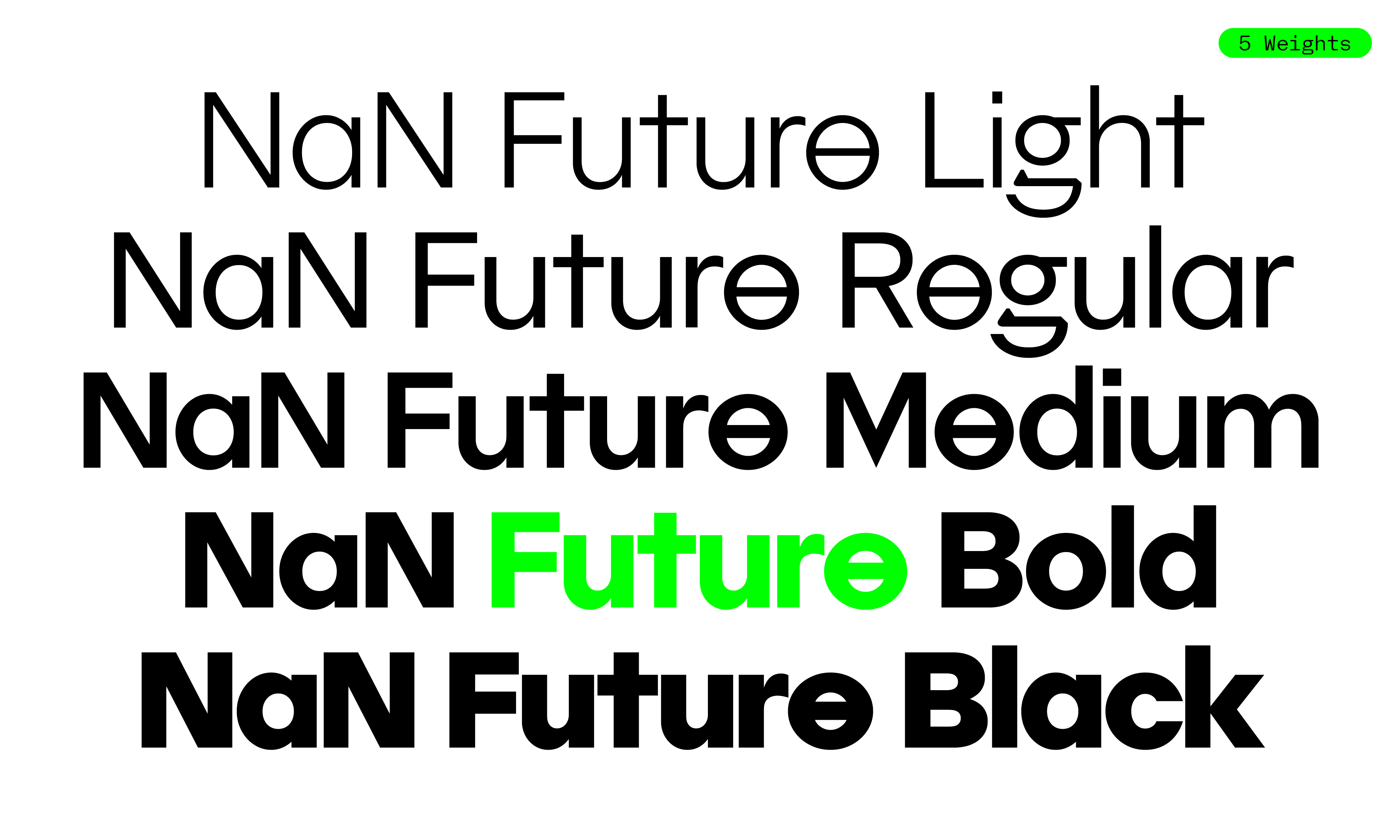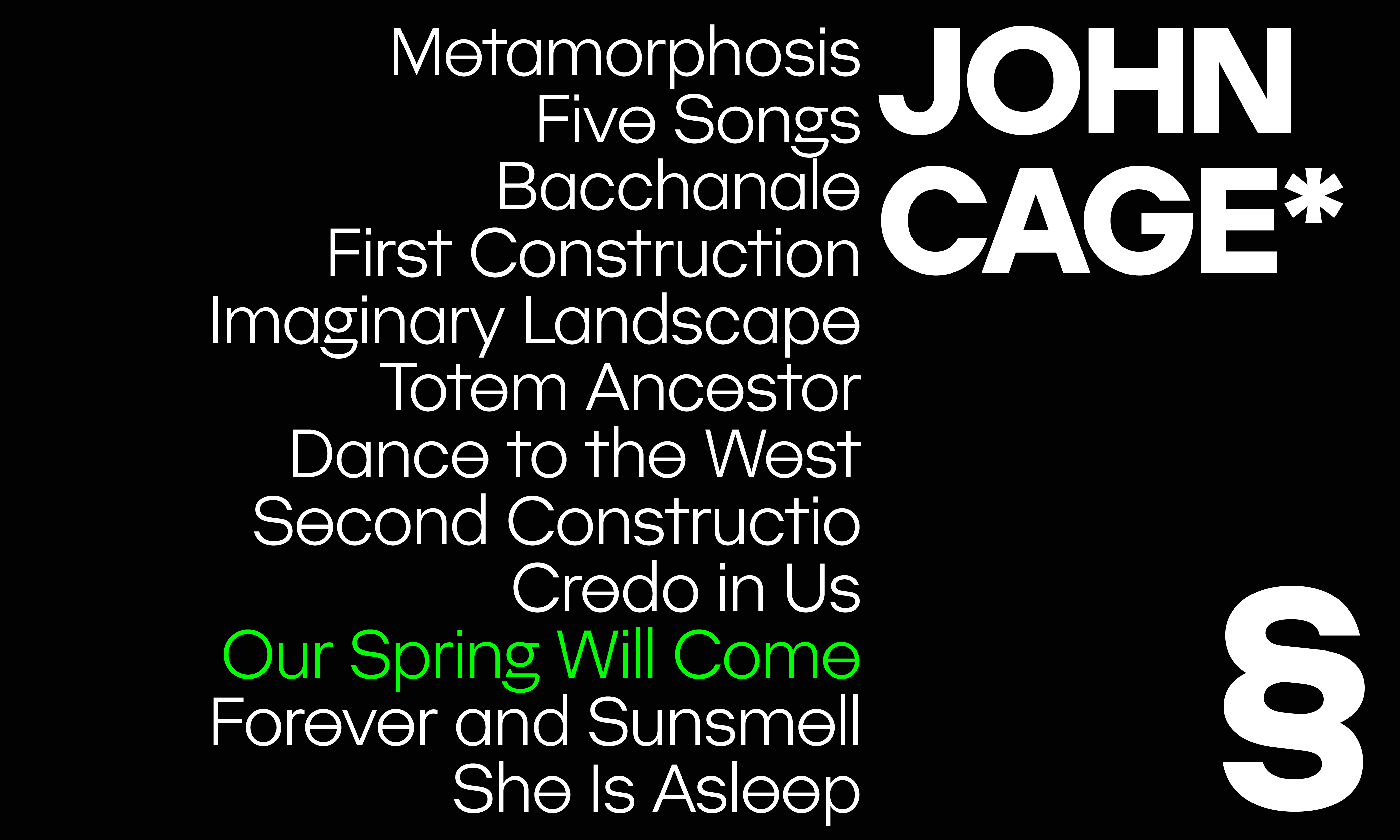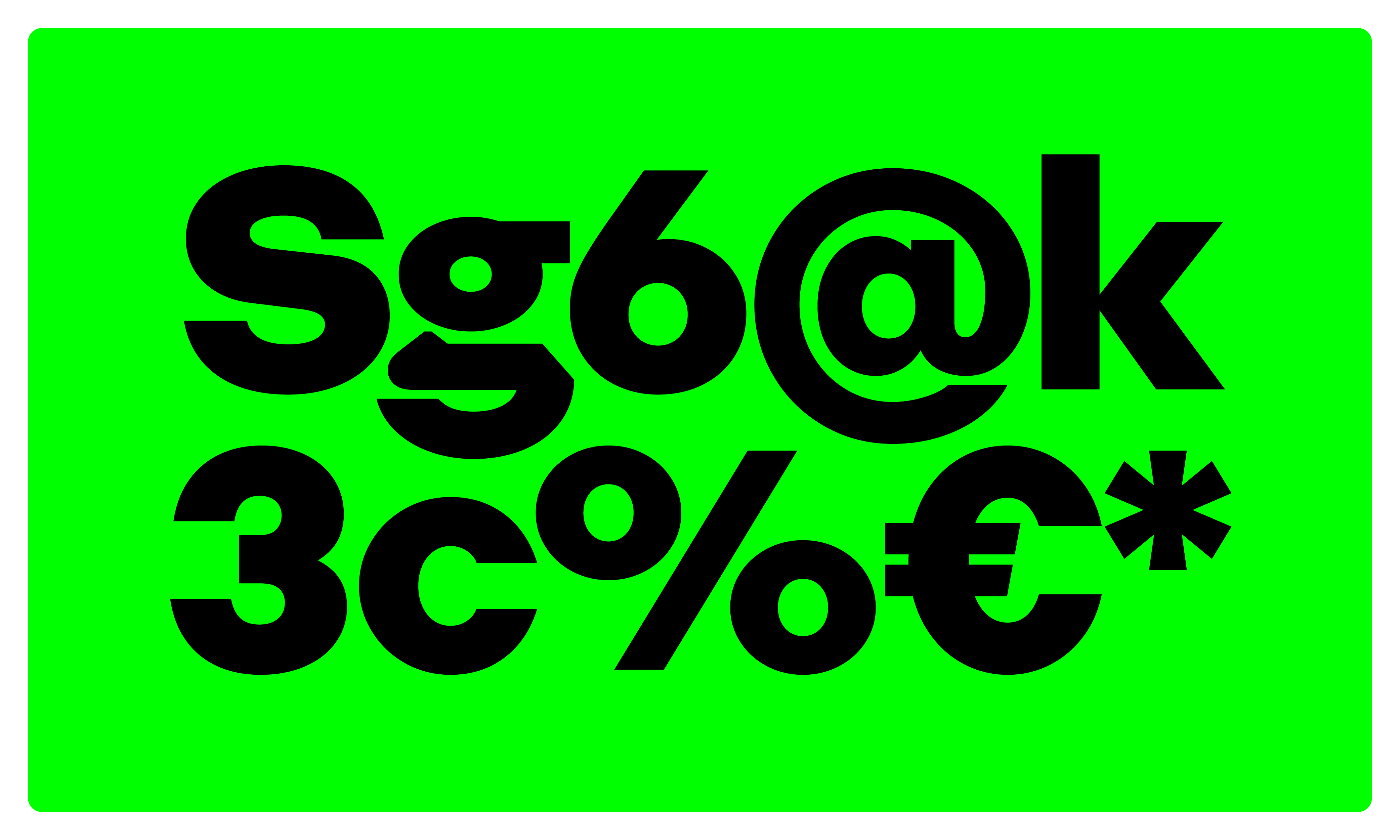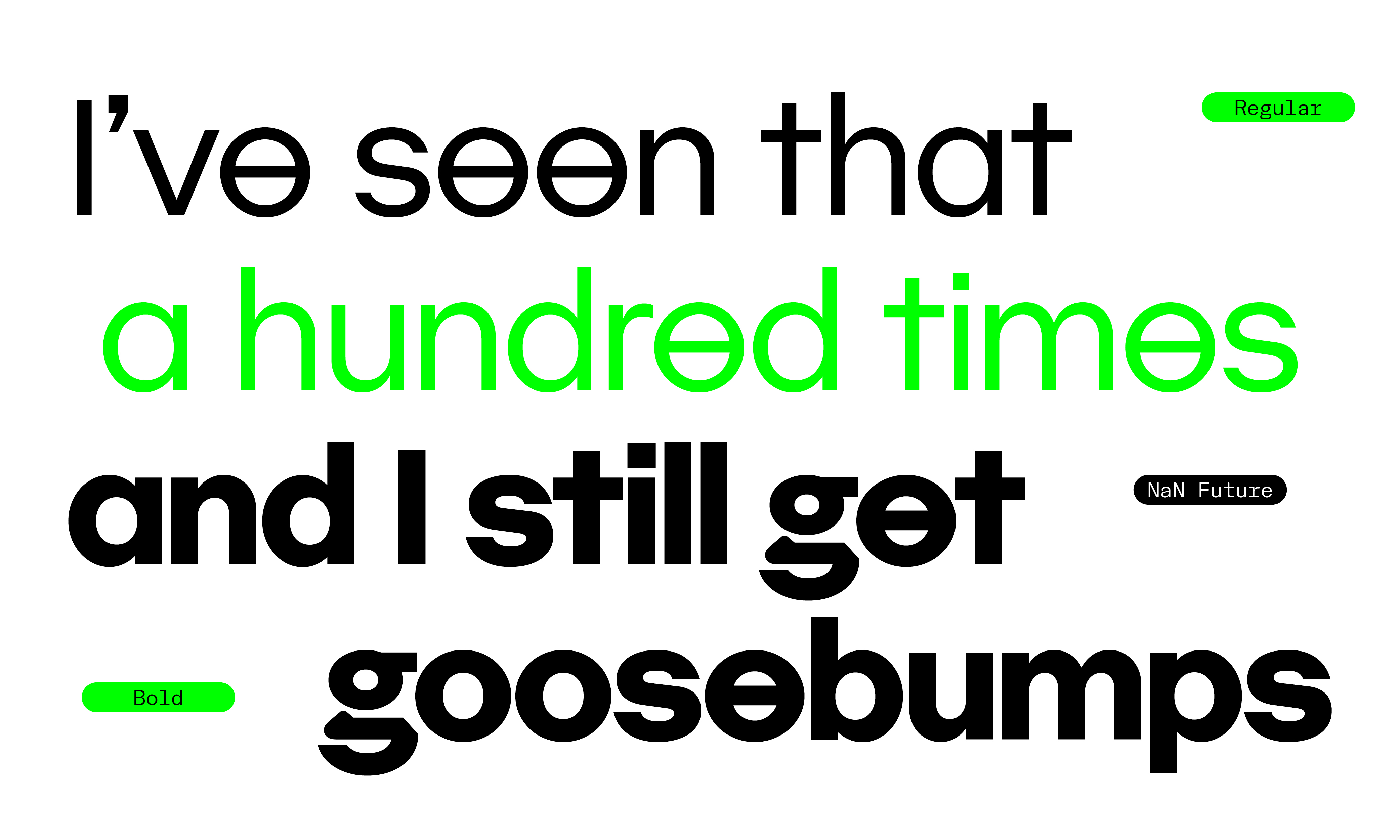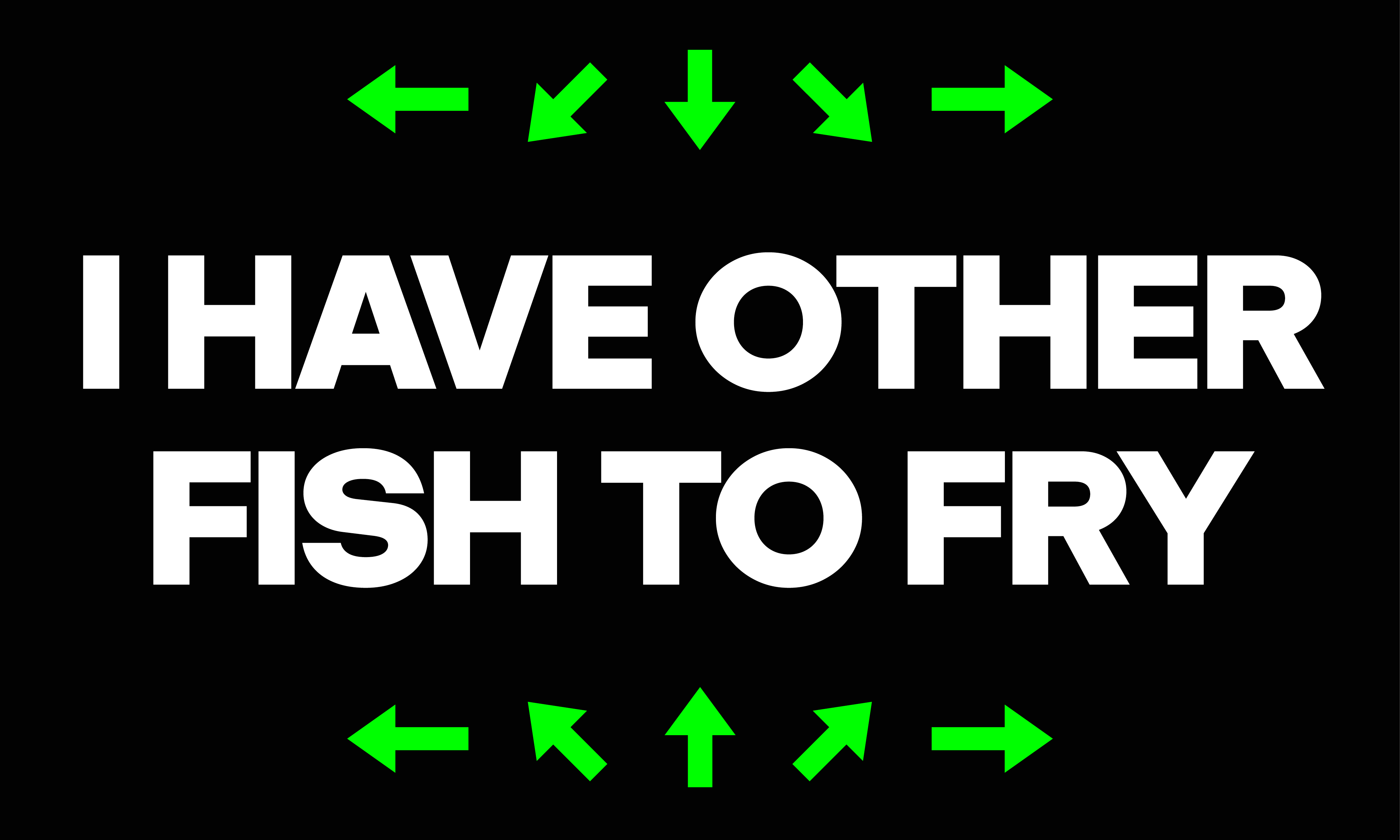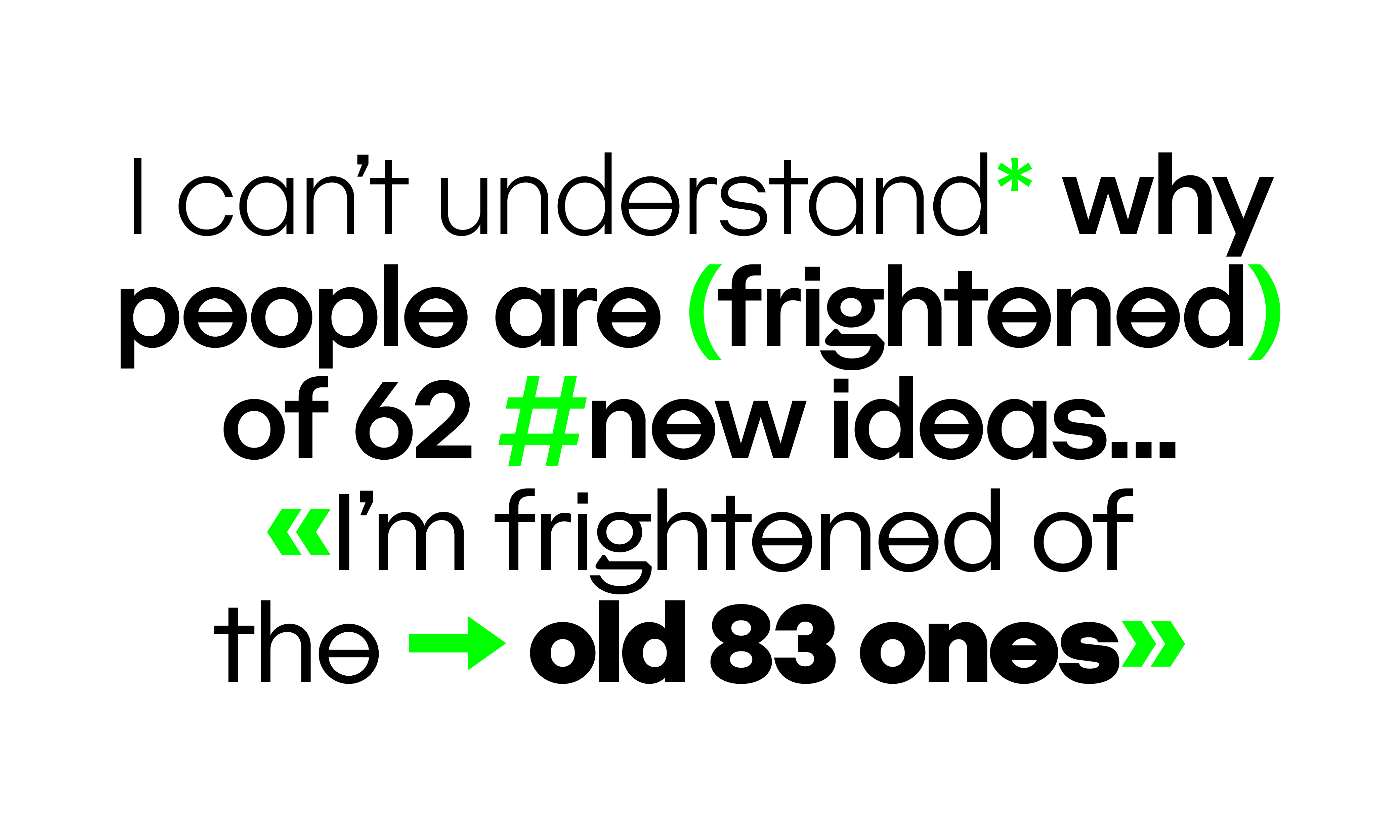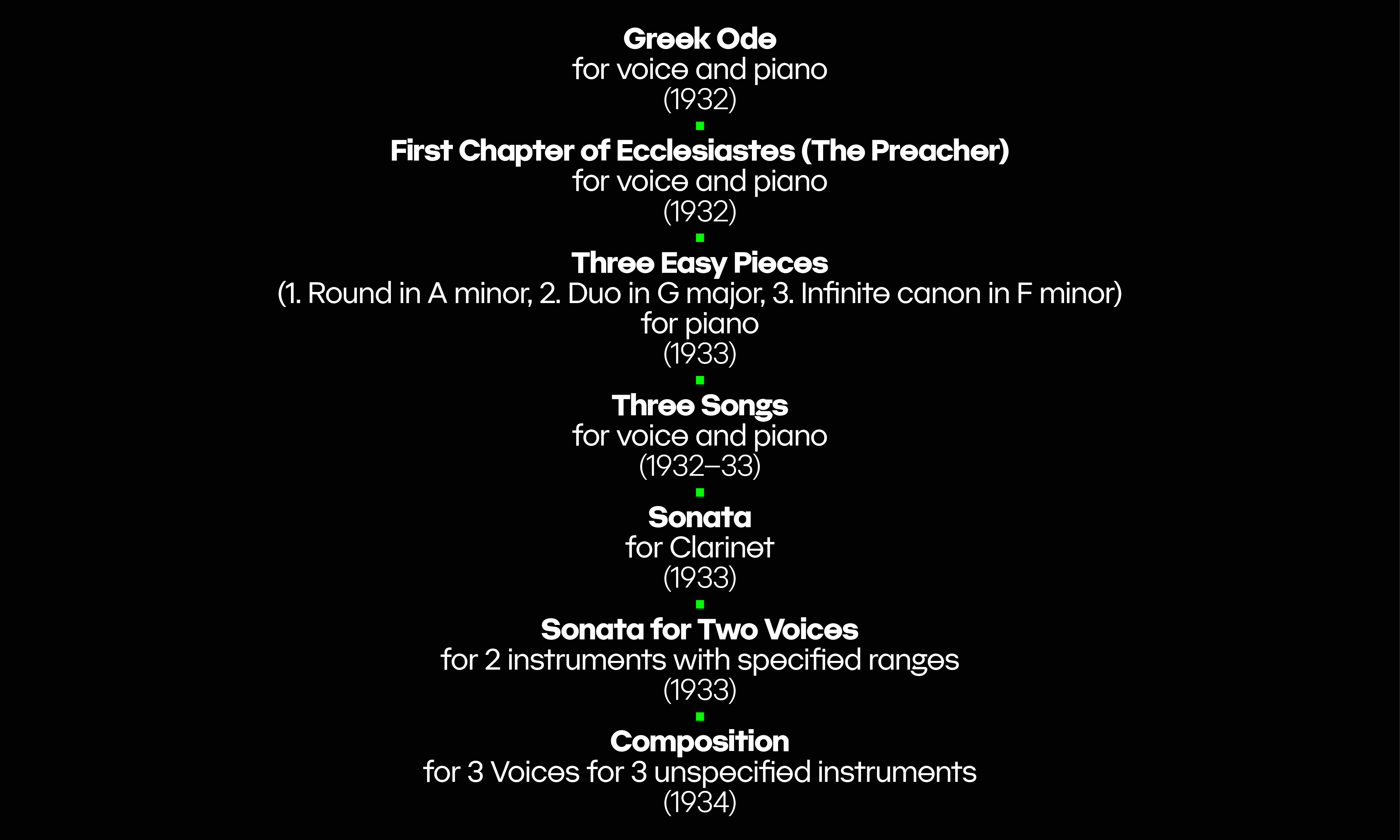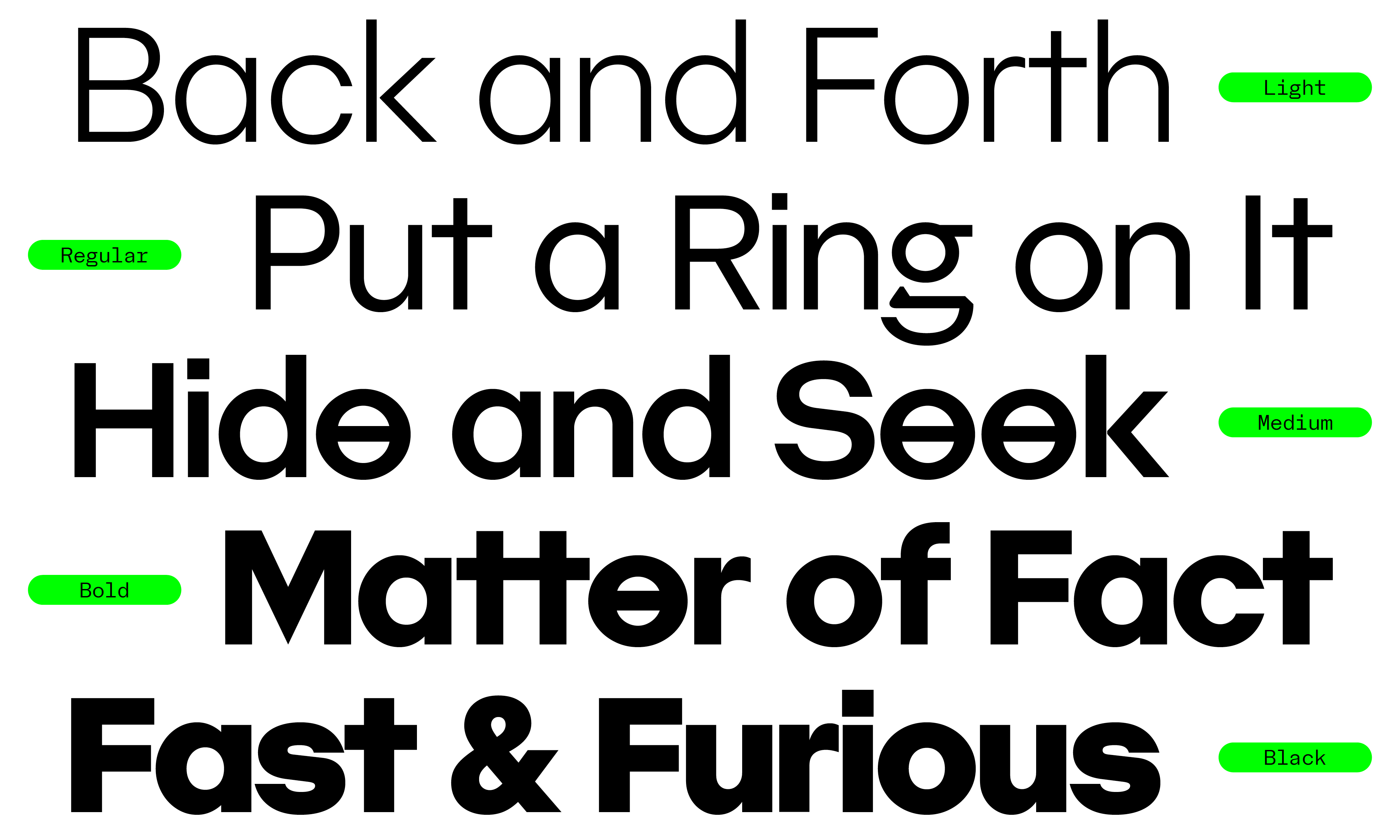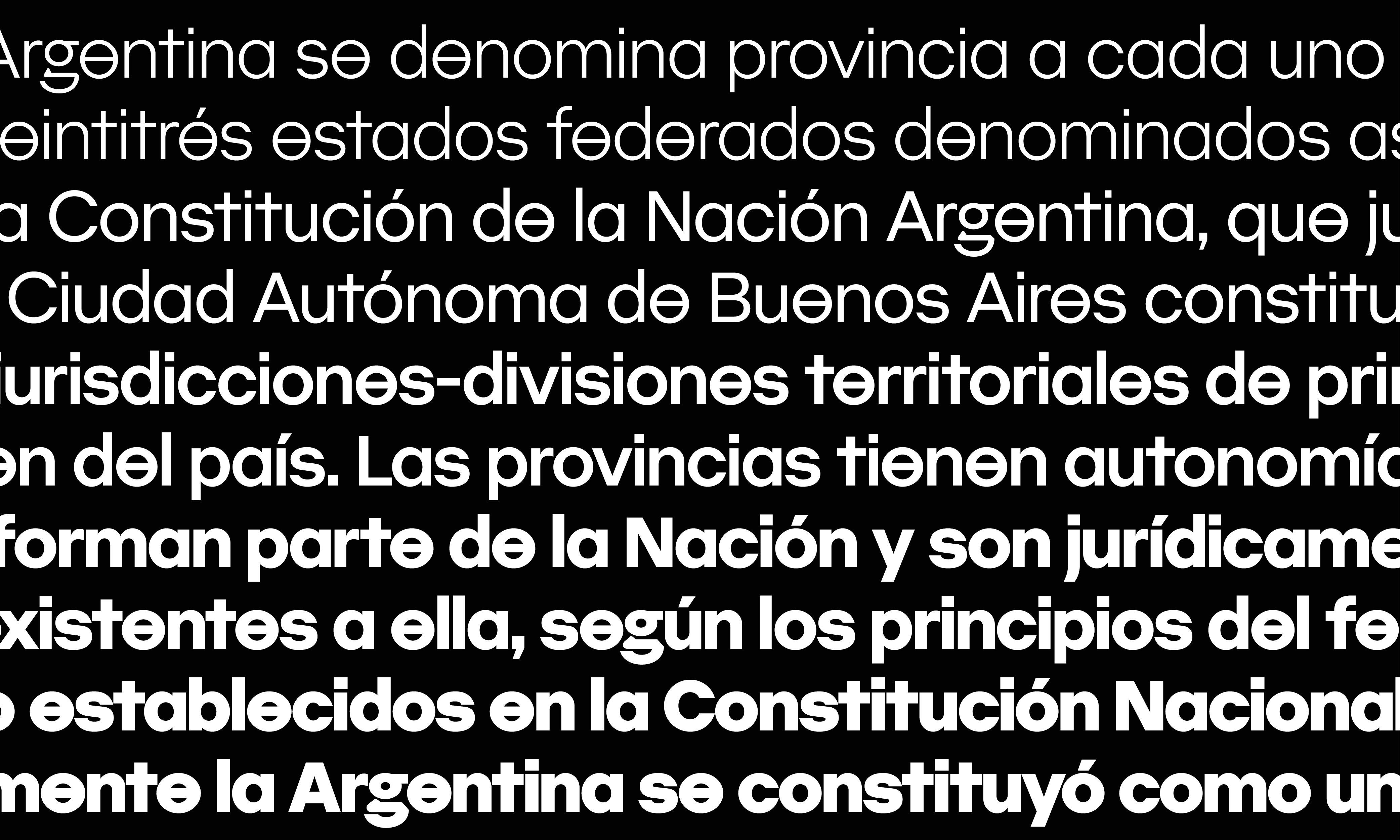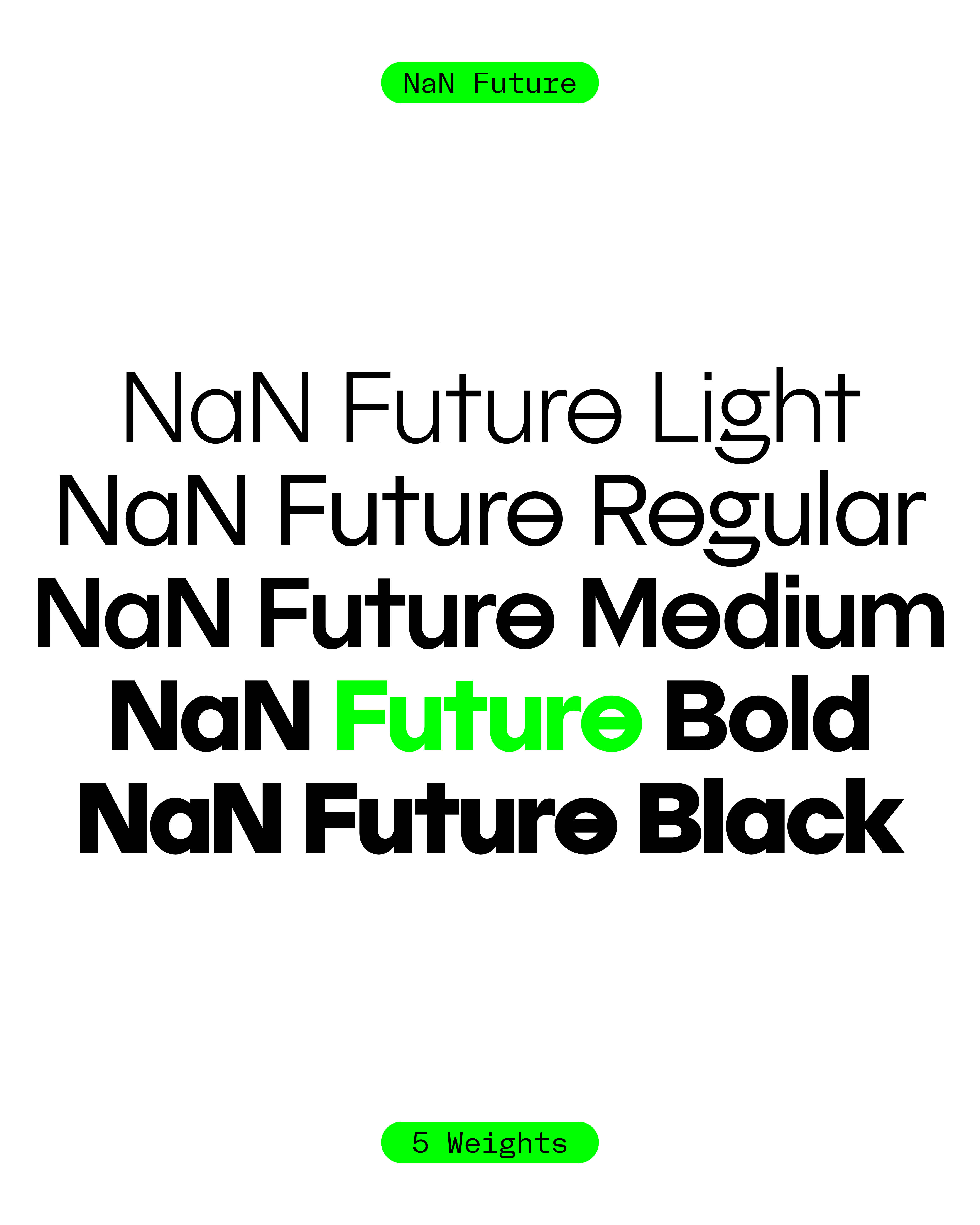
NaN Future family
by NaN
NaN Future
NaN Future, the geometric sans which forgot to be boring. The distinctive /e and /g make you travel to a parallel universe where the techno-fascists disn't skip design and history lessons.
NaN Future OpenType Features
- Ordinals (on) (off) 1o 2a
- Tabular Figures (on) (off) 0123456789